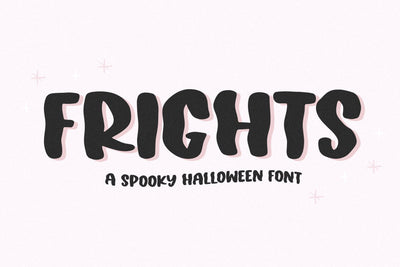
Frights - Spooky Halloween Font
Frights is a spooky font perfect for your halloween designs!
This is an all caps font.
Use this font for shirts, logos, doormats, stickers, procreate designs, instagram quotes, spooky svg files and more!